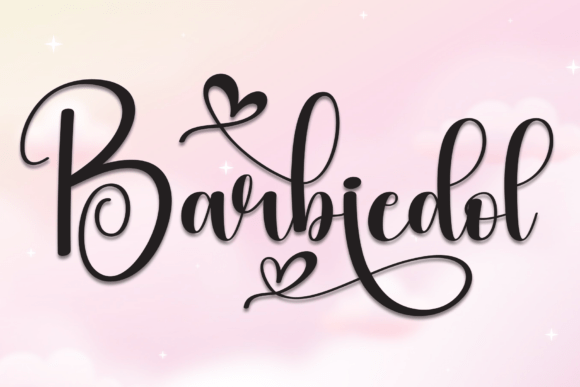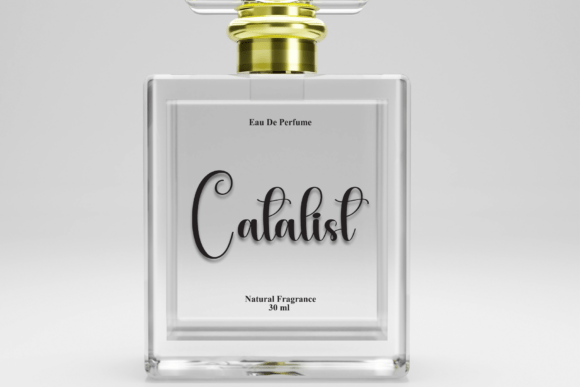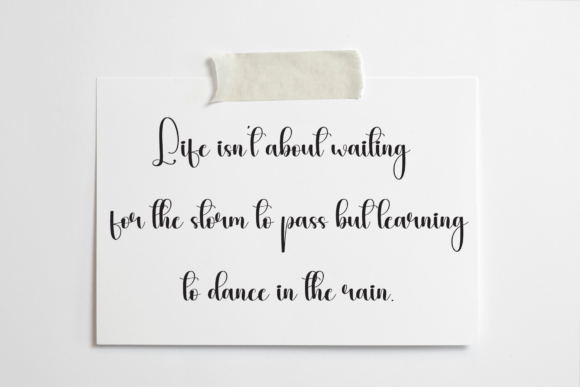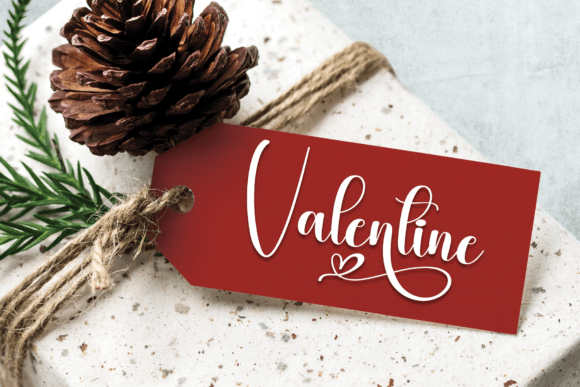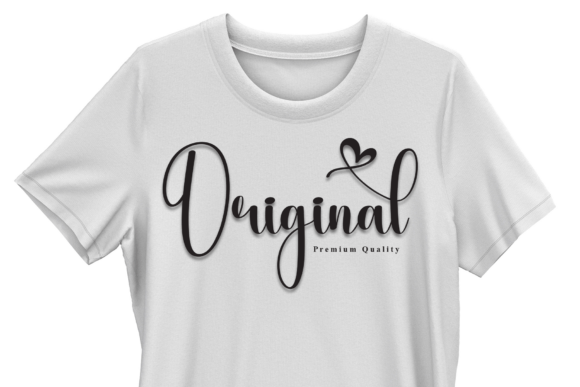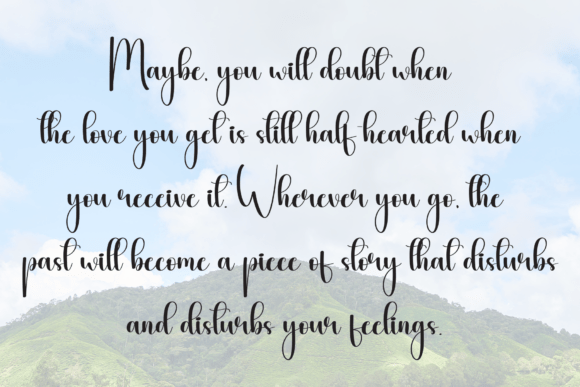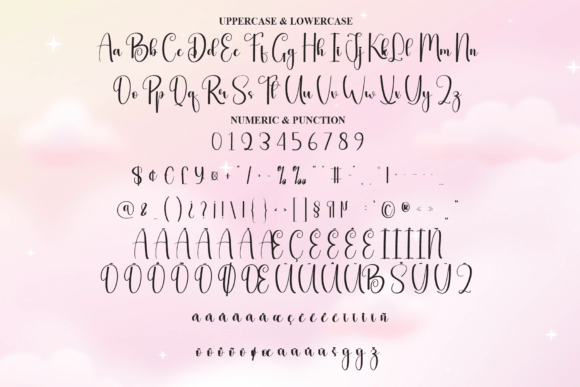
The Perfect Blend of Elegance and Whimsy: Unveiling the Barbiedol Font
Have you ever been stuck in a creative rut, staring at a blank canvas with no inspiration in sight? For many designers, it’s that moment when the perfect font can make all the difference. Imagine you’re working on a new project, and suddenly, the right typography clicks – it’s like the whole design falls into place.
Enter the Barbiedol Font, a stylish handwritten script that brings a touch of modern elegance and playful charm to any design. With its fluid strokes and charming curves, this typeface is perfect for logos, packaging, and invitations, adding warmth, sophistication, and creativity to every project. Whether you’re a seasoned designer or just starting out, the Barbiedol Font is a valuable addition to your toolkit, offering endless possibilities for creative expression.
Key Features of Barbiedol Font
- Unique Characteristics: This font features a distinctive, playful style with exaggerated lines and curves, making it perfect for designs that require a touch of whimsy and personality.
Barbiedol Font Review
I recently had the chance to work with the Barbiedol font, and I must say, it’s a unique and interesting addition to any design project. Here are my thoughts:
- The Barbiedol font has a distinct retro aesthetic that can add a touch of nostalgia to your designs. It’s perfect for projects that require a vintage vibe.
- The font is highly customizable, allowing you to adjust the size, color, and spacing to suit your needs.
- The Barbiedol font is also quite versatile, making it suitable for a wide range of design applications, from logos to text-based designs.
- The font may not be suitable for projects that require a more modern or minimalist aesthetic.
- The Barbiedol font can be a bit overbearing if used extensively, so it’s essential to use it judiciously.
- The font may not be as legible at smaller font sizes, which can be a concern for projects that require text to be displayed at smaller sizes.
Overall, I think the Barbiedol font is a great addition to any design project that requires a retro or vintage aesthetic. While it may have some limitations, it’s a highly customizable and versatile font that can add a unique touch to your designs.
To get the most out of Barbiedol font, use it for bold and playful headings, such as:
- Blog post titles
- Social media graphics
- Product branding
Remember to pair Barbiedol font with a clear and readable font for body text to maintain visual balance.